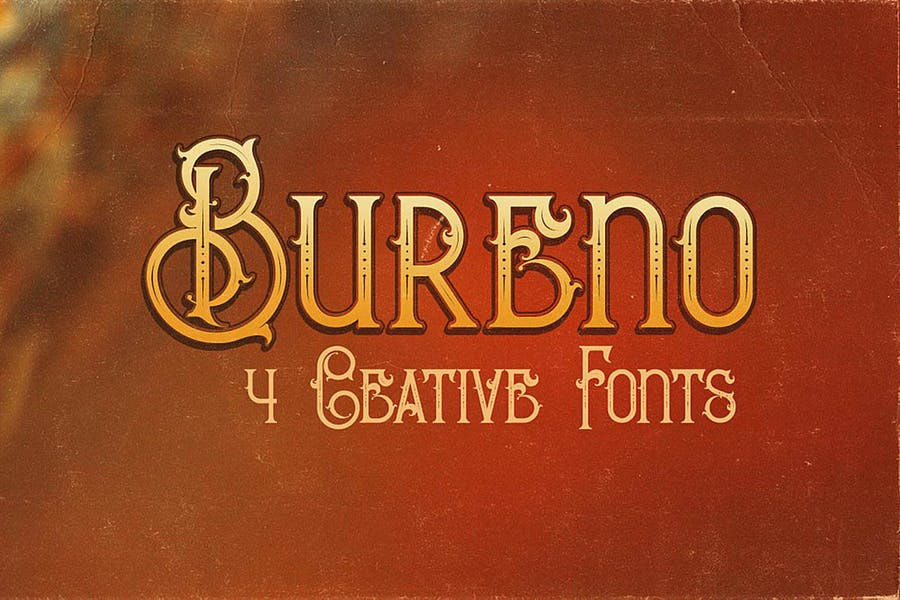
Bureno - Decorative Font
Bureno Decorative Font is perfect for ornate luxury branding, decorative event invitations, baroque-inspired marketing, elaborate celebration graphics, ornamental signage design, sophisticated artistic projects, grand ceremonial communications, and richly detailed visual presentations.
What makes Bureno Decorative Font exciting is its ornamental grandeur that embodies elaborate sophistication and decorative magnificence with baroque elegance and artistic complexity. The font features intricate letterforms with ornate flourishes and decorative character variations that evoke golden frames, palace architecture, and the lavish artistry of ceremonial decoration and baroque ornamentation. Its distinctive ornamental styling and elaborate appeal communicate luxury, artistry, and decorative excellence, making every message feel adorned with artistic splendor and touched by the magnificent beauty of ornate craftsmanship and decorative sophistication.
The Bureno Decorative Font family includes regular weight with uppercase and lowercase letters, numerals, punctuation marks, and special characters. Premium versions often feature additional ornamental alternates and decorative elements that enhance the baroque, elaborate aesthetic perfect for luxury and ceremonial applications.
This magnificent ornamental typeface brings instant luxury and artistic credibility to any decorative project. Bureno Decorative Font Free Download offers exceptional value for luxury brands and artistic organizations seeking to communicate ornate elegance, decorative sophistication, and baroque magnificence to discerning audiences and luxury consumers.
The elaborate character of Bureno Decorative Font makes it particularly valuable for luxury event planners, high-end interior designers, and ornamental craft businesses. Its excellent impact ensures decorative messaging and luxury communications capture attention while maintaining the distinctive baroque aesthetic that appeals to clients seeking elaborate artistic experiences and ornamental sophistication.
Luxury artistic marketers appreciate how Bureno Decorative Font effortlessly conveys ornamental authenticity and decorative excellence. The font's intricate proportions and baroque details create magnificent brand materials that establish connections with audiences who value artistic elaboration, decorative craftsmanship, and the ornate beauty of baroque artistry and ceremonial decoration.
The versatile magnificence of this typeface extends to luxury hospitality, ornamental architecture, and artistic education where decorative authenticity enhances luxury positioning and artistic appeal. Bureno Decorative Font Free Download provides creative professionals with an essential tool for developing memorable, ornament-driven designs that resonate with audiences who embrace baroque elegance, decorative artistry, and the magnificent complexity of ornamental sophistication in their luxury and artistic experiences.